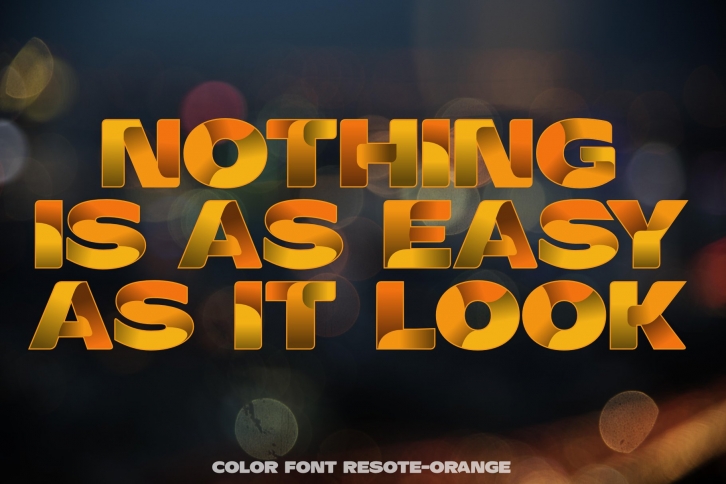
Decorative, color fonts ResotE-Fruits:
- ResotE-Apple
- ResotE-Coconut
- ResotE-Kiwi
- ResotE-Lemon
- ResotE-Lime
- ResotE-Orange
- ResotE-Plum
- Diacritic Glyphs
- Ligatures (small tip: use !A! and !B! for flower glyphs!)
- Contextual Alternates